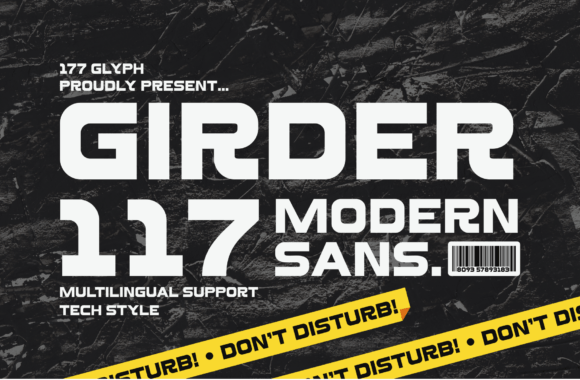
Girder 117: A Modern Sans Serif That Just Works
It was 10:47 a.m., coffee half gone, and I’d just opened a fresh brand board for a local ceramic studio—hand-thrown pieces, quiet earth tones, no corporate gloss. Their old logo used a slightly overworked geometric sans that felt dated next to their new matte-glaze mugs. I typed “Girder 117” into my font menu and dropped it into the logo draft. No kerning tweaks yet. No stylistic alternates. Just the regular weight, all-caps, centered. And immediately—the space around the letters breathed. Not flashy. Not cold. Just… resolved.
What Girder 117 Actually Feels Like in Practice
Girder 117 is a Modern Sans Serif with quiet confidence. It’s not minimalist in the way some fonts erase personality—it has subtle warmth in its terminals, gentle contrast in stroke weight, and generous x-height without looking squat. The curves are soft but precise; the verticals are upright but never rigid. There’s no forced quirkiness, no exaggerated proportions, no hidden gimmicks. What you see is what you get—and what you get is clarity, consistency, and calm authority.
I tested it across six real touchpoints: the ceramic studio’s logo lockup, their brand board (with color swatches and tone-of-voice notes), a mockup of their matte-black product label, a folded business card printed on uncoated stock, their website hero section (set at 48px on desktop, 32px on mobile), and a carousel of Instagram posts showing new glaze batches. In every case, Girder 117 held its own—not by shouting, but by settling in like it belonged.
Where It Shines (and Where It Doesn’t Pretend To)
Girder 117 excels as a logo font and headline font. Its clean structure reads instantly at small sizes on packaging labels—even down to 9pt on a 2” x 3” sticker—and scales beautifully up to 120px on a shop sign or homepage banner. On screen, it renders cleanly across Chrome, Safari, and Edge, with no hint of blurriness or uneven spacing. For social media graphics, it pairs effortlessly with tight photo crops: no competing visual noise, just clean emphasis on the message.
But here’s the honest part: Girder 117 isn’t built for long-form body text. It lacks the rhythm and open counters of dedicated text faces like Inter or Lora. I tried it in a product story on their site—three dense paragraphs about clay sourcing—and while legible, it fatigued the eye faster than a well-chosen serif or humanist sans. Save it for headlines, subheads, captions, signage, and short brand statements. Let your body copy breathe with something more nuanced.
It also doesn’t try to be playful or ornamental. Don’t reach for Girder 117 if you’re designing a children’s book cover or a festival poster needing kinetic energy. It’s not a display font in the decorative sense—it’s a modern typography anchor. Think of it as the quiet director who keeps everything aligned, not the lead actor stealing the scene.
Pairing It Without Overthinking
In the ceramic studio project, I paired Girder 117 (regular and bold weights) with IBM Plex Serif for body copy and captions. The contrast worked because both typefaces share similar proportions and a grounded, contemporary sensibility—no jarring jumps in tone or scale. Girder 117’s clean geometry gave the logo and headers presence; IBM Plex Serif added warmth and readability where readers needed to linger.
You could also pair it smartly with a restrained script—like Commissioner or Recoleta—for a single accent word (“Handmade,” “Studio,” “Since 2018”). But avoid overly flourished scripts or high-contrast serifs that clash with Girder 117’s even-handedness. When in doubt, stick with another neutral sans (a warmer one like Work Sans, or a more structured one like Manrope) for secondary text. Consistency > contrast, especially in small-batch branding.
Practical Notes Before You Commit
Girder 117 comes in seven weights (Thin through Black), each with matching italics—so you’ve got real flexibility for hierarchy without switching families. It includes standard OpenType features: ligatures (subtle but useful in headlines), small caps, and localized glyphs for Western European languages. No swashes or discretionary alternates—this isn’t that kind of font. And yes, it’s available as a webfont (WOFF2) with proper CSS variable support, so you can adjust weight and width smoothly in modern layouts.
One final note: test it early, and test it *printed*. I once loved how Girder 117 looked on my Retina display—only to realize the Thin weight vanished almost entirely on uncoated paper at 8pt. The Regular and Medium weights? Crisp. Reliable. Perfect. So build your system around what holds up—not just what looks sharp in Figma.
At the end of the day, Girder 117 isn’t trying to be everything. It’s a focused, dependable sans serif font—thoughtful in its restraint, versatile in its application, and refreshingly free of trend fatigue. For designers building authentic, small-scale brand identities—whether for a handmade shop, a neighborhood café, or a creative studio—it’s less of a “choice” and more of a quiet nod: This fits.